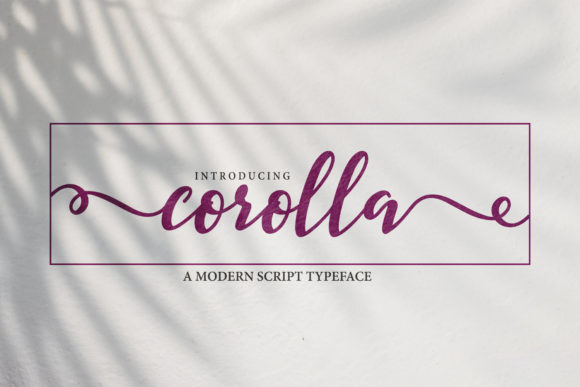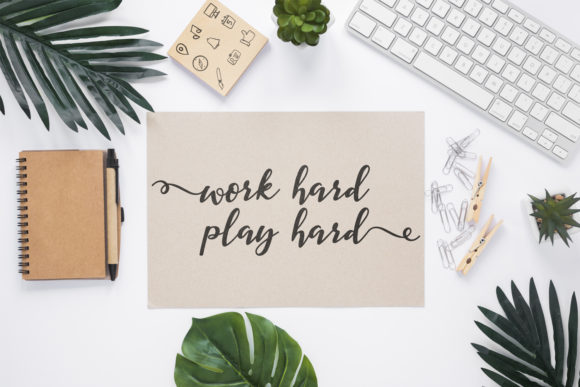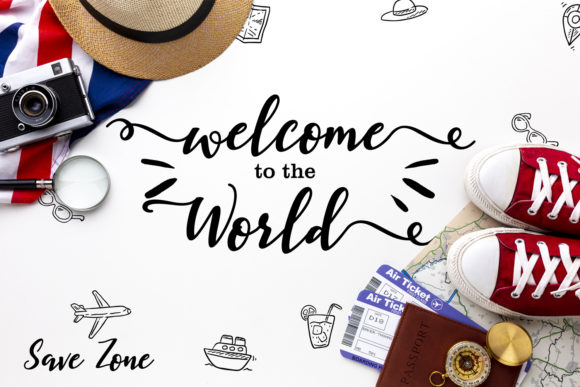
Corolla Font
About Corolla Font
Corolla is a modern and beautiful handwritten font with an incredibly friendly feel. It features gorgeous swashes and ligatures that make this script incredibly versatile. Whether you’re looking for fonts for Instagram or calligraphy scripts for DIY projects, Corolla will turn any creative idea into a true piece of art!